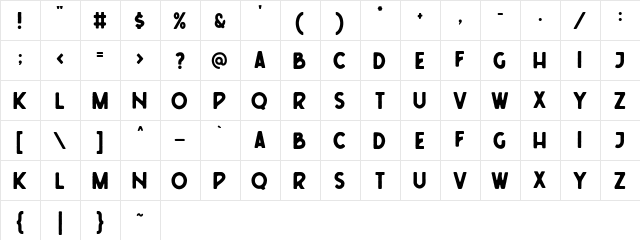
Freudian Two Regular
| Foundry | Garisman Studio |
| Designer | Risman Ginarwan |
Design Context for Freudian Two Typeface
Freudian Two takes a measured approach to typography — its balanced proportions and neutral character make it a reliable workhorse for both digital and print work.